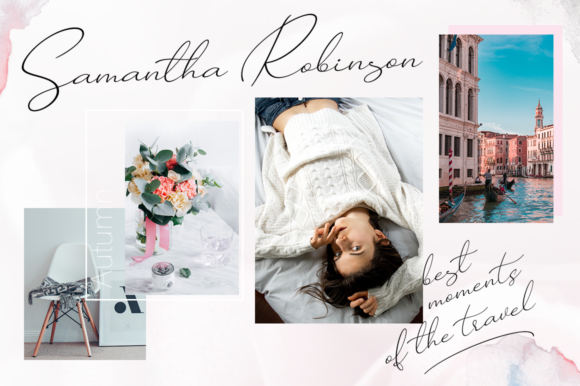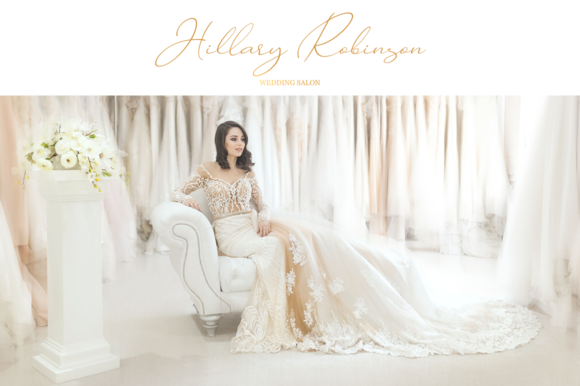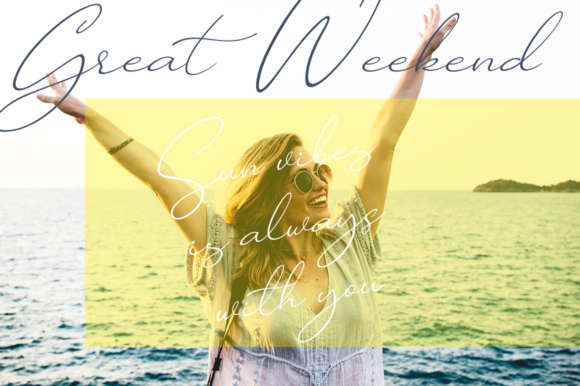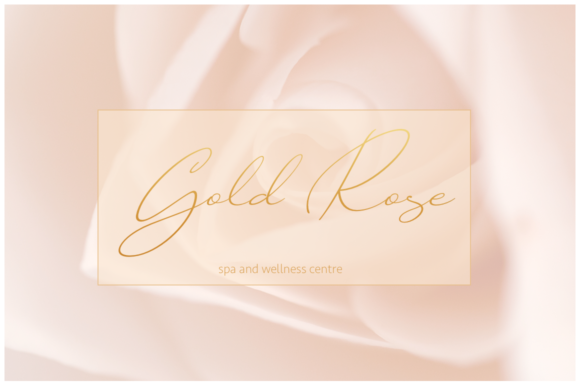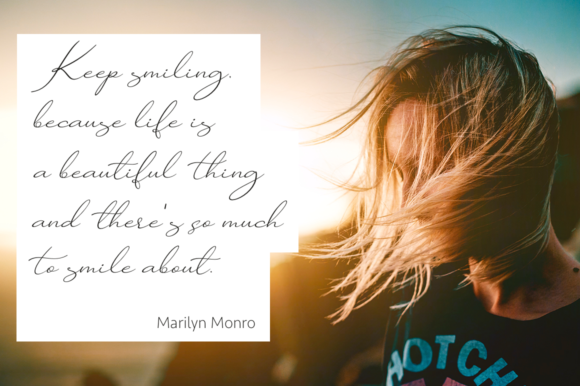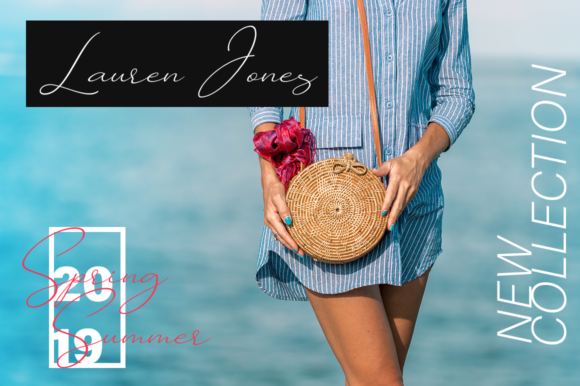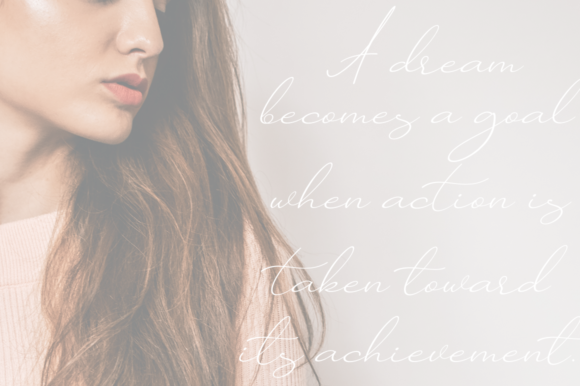
Helardy Font
Introducing “The Helardy,” a classy script font designed to bring an elegant touch to your projects. This font is not just a typeface; it’s a versatile design asset crafted to adorn and brand a variety of creative endeavors. “The Helardy” is particularly well-suited for wedding invitations, blogs, logos, and more.
With its graceful script style, “The Helardy” adds a touch of class and sophistication to any project. Whether you’re looking to decorate and brand your designs or create elegant wedding invitations, this font delivers with its timeless and refined appearance.
The versatility of “The Helardy” allows it to seamlessly adapt to different design contexts. In branding, the font establishes a classy and memorable visual identity. For wedding invitations, it brings an elegant and romantic flair to the special occasion. Blogs benefit from the font’s stylish script, enhancing the overall aesthetic.
Whether you’re crafting logos or working on various design projects, “The Helardy” is a design companion that can elevate your work with its classy and timeless appeal.
In summary, “The Helardy” is more than just a font; it’s a design asset that brings a classy script style to your creative projects. Embrace its elegance for wedding invitations, branding, blogs, and more, and let “The Helardy” add a touch of sophistication to your designs.